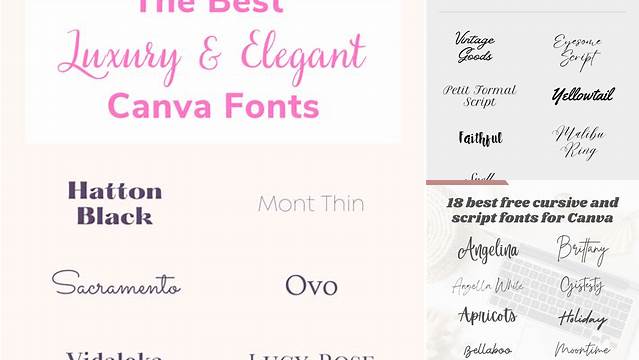
Elegant Thick Cursive Fonts In Canva: A Design Guide
Hey guys! Ever wanted to add a touch of sophistication and personality to your designs? You know, that elegant flair that just screams professional and eye-catching? Well, you've stumbled upon the right place! Today, we're diving deep into the world of thick cursive fonts in Canva, a design tool that's become a total game-changer for everyone from social media gurus to small business owners. Thick cursive fonts aren't just pretty; they're powerful. They evoke feelings of luxury, creativity, and a personal touch, making them perfect for invitations, logos, branding materials, and so much more. But with so many options out there, how do you choose the right one? How do you make sure it pops without being overwhelming? Don't worry, we've got you covered! We'll explore why thick cursive fonts are so effective, how to find them in Canva, and how to use them like a pro. So, buckle up, grab your favorite beverage, and let's unlock the elegance of thick cursive fonts together! Think of thick cursive fonts as the secret sauce that can elevate your designs from meh to magnificent. They're not just about looking fancy; they're about conveying a message with style and grace. Imagine a wedding invitation with a beautifully flowing cursive font announcing the big day – instantly, you get a sense of romance and elegance. Or a logo for a boutique that uses a thick cursive font to exude sophistication and exclusivity. The power of these fonts lies in their ability to communicate emotions and brand identity in a visual way. But let's be real, using cursive fonts effectively is an art. Too thin, and they might get lost in the design. Too ornate, and they become illegible. That's where the thickness comes in. A thick cursive font provides the perfect balance – it's bold enough to grab attention, yet still retains the graceful curves and loops that make cursive so captivating. Now, you might be wondering, "Why Canva?" Well, Canva has democratized design, making it accessible to everyone, regardless of their design background. Its user-friendly interface and vast library of fonts, templates, and graphics make it a playground for creativity. And when it comes to cursive fonts, Canva doesn't disappoint. From classic scripts to modern calligraphy, you'll find a treasure trove of options to choose from. But with so many choices, it's easy to get overwhelmed. That's why we're here to guide you through the process, helping you navigate Canva's font library and discover the perfect thick cursive font for your next project.
Why Choose Thick Cursive Fonts? Exploring the Psychology and Impact
Okay, let's get down to the nitty-gritty of why thick cursive fonts are such a big deal. It's not just about aesthetics, guys; there's some serious psychology at play here! Cursive fonts, in general, evoke a sense of tradition, elegance, and personal touch. They remind us of handwritten letters, calligraphy, and the artistry of penmanship. This association creates an emotional connection with the viewer, making your message feel more authentic and heartfelt. But why thick cursive fonts specifically? Well, the added thickness brings a level of boldness and impact that thinner scripts often lack. They stand out, command attention, and make a statement. Think of it like this: a thin cursive font might whisper elegance, but a thick cursive font declares it! They're confident, stylish, and leave a lasting impression. The psychology behind font choices is fascinating. Different fonts trigger different emotions and associations in our brains. Serif fonts, with their little decorative strokes, often convey a sense of tradition and authority. Sans-serif fonts, with their clean and minimalist lines, are perceived as modern and approachable. Cursive fonts, on the other hand, tap into our emotions, evoking feelings of romance, creativity, and nostalgia. When you choose a thick cursive font, you're not just selecting a typeface; you're crafting a mood, a message, and an experience for your audience. The impact of thick cursive fonts extends beyond just emotional appeal. They also play a crucial role in readability and visual hierarchy. In a design, the fonts you use should guide the viewer's eye, highlighting important information and creating a clear flow. Thick cursive fonts can be used strategically to draw attention to headings, titles, or key phrases. Their boldness ensures they don't get lost in the design, while their elegance adds a touch of sophistication. However, it's crucial to use them sparingly and thoughtfully. Overusing cursive fonts can make your design look cluttered and difficult to read. The key is to balance them with simpler fonts for body text, creating a visual contrast that enhances the overall design. Think of mixing a thick cursive font for your headline with a clean sans-serif font for the paragraph text. This combination creates a visually appealing hierarchy, guiding the reader through your message effortlessly. Moreover, thick cursive fonts are incredibly versatile. They work wonders in a variety of design contexts, from wedding invitations and greeting cards to logos and branding materials. They add a touch of class to product packaging, elevate social media graphics, and make websites feel more personal and engaging. Whether you're designing a logo for a luxury brand or creating a poster for a creative workshop, a thick cursive font can be your secret weapon for adding that extra oomph. So, next time you're choosing a font, consider the message you want to convey and the emotions you want to evoke. Don't underestimate the power of a thick cursive font to transform your design from ordinary to extraordinary!
Finding the Perfect Thick Cursive Font in Canva: A Step-by-Step Guide
Alright, guys, let's get practical! You're sold on the power of thick cursive fonts, but how do you actually find them in Canva? Don't worry, it's easier than you think! Canva's font library is vast, but with a few tricks and tips, you'll be navigating it like a pro in no time. First things first, let's talk about navigating the Canva interface. When you open a design in Canva, you'll see a text tool in the left-hand menu. Click on it, and you can add a text box to your design. Once you've added your text, the font menu will appear in the top toolbar. This is where the magic happens! The font menu displays the current font being used, and when you click on it, a dropdown list of fonts will appear. You can scroll through the list, but with hundreds of fonts available, that can take a while. That's where the search bar comes in handy. Simply type "cursive" or "script" into the search bar, and Canva will filter the font list to show you all the cursive fonts available. But here's where it gets interesting. To find thick cursive fonts specifically, you can add keywords like "bold," "heavy," or "thick" to your search. For example, try searching for "thick script" or "bold cursive." This will narrow down your options and help you find fonts with the weight and presence you're looking for. Another super helpful feature in Canva is the font categories. In the font dropdown menu, you'll see a list of categories like "Handwriting," "Serif," "Sans Serif," and more. The "Handwriting" category is a great place to start when looking for cursive fonts. You can also explore the "Script" category, which is specifically dedicated to script and cursive styles. Once you've found a font that catches your eye, click on it to apply it to your text. You can then adjust the font size, color, and other formatting options using the toolbar at the top. Experiment with different sizes and colors to see how the font looks in your design. Don't be afraid to play around and try different combinations! Now, let's talk about some specific thick cursive fonts that you can find in Canva. While the exact font names might change over time as Canva updates its library, there are some general styles to look out for. Fonts with names like "Brush Script," "Signature," or "Calligraphy" often come in thicker weights. You can also look for fonts that have the word "Bold" or "Black" in their name, as these typically indicate a heavier version of the font. One of my personal favorites is a font called "Great Vibes." It's a classic cursive font with a beautiful flow and a good amount of thickness. Another great option is "Playlist Script," which has a more modern and playful feel. And for a truly bold and impactful look, check out fonts like "Amatic SC" (while technically a sans-serif, it has a hand-drawn feel) or "Pacifico" (a casual and friendly script). Remember, the best way to find the perfect font is to experiment and try different options. Don't settle for the first font you see. Take the time to browse Canva's library, play with different keywords and categories, and see what resonates with your design. And most importantly, have fun with it! Choosing fonts should be an enjoyable part of the design process. So, go ahead, dive into Canva's font library, and discover the perfect thick cursive font to elevate your creations!
Best Practices for Using Thick Cursive Fonts: Legibility and Impact
Okay, you've found your perfect thick cursive font in Canva – awesome! But hold your horses, guys, the job's not quite done yet. Using a beautiful font is one thing, but using it effectively is a whole other ballgame. We need to talk about best practices to ensure your designs are not only stunning but also legible and impactful. Let's start with the big one: legibility. Cursive fonts, especially thick ones, can sometimes be tricky to read if not used carefully. All those swirls and loops that make them so elegant can also make them a bit of a visual maze if you're not mindful. The key here is contrast. Make sure your cursive font stands out clearly against its background. If you're using a dark cursive font, use a light background, and vice versa. Avoid using cursive fonts on busy or cluttered backgrounds, as this can make them even harder to read. Another important factor in legibility is font size. Thick cursive fonts generally look best when used for headings, titles, or short phrases. They might not be the best choice for long paragraphs of text, as the intricate details can become overwhelming at smaller sizes. If you're using a cursive font for body text, make sure it's large enough to read comfortably. You can also increase the line spacing (also known as leading) to give the letters more room to breathe. Kerning, the spacing between individual letters, is also crucial. Some cursive fonts have tricky kerning, where the letters might appear too close together or too far apart. Canva allows you to adjust the kerning manually, so take the time to fine-tune the spacing for optimal legibility. Now, let's talk about impact. You want your thick cursive font to grab attention and make a statement, but you also want to use it strategically. Overusing cursive fonts can diminish their impact and make your design look cluttered and overwhelming. The best approach is to use them sparingly and purposefully. Think of your cursive font as the star of the show. It should be the focal point of your design, drawing the viewer's eye to the most important information. Pair it with simpler, more legible fonts for other elements like body text or subheadings. This creates a visual hierarchy, guiding the viewer through your message in a clear and effective way. When choosing a thick cursive font, consider the tone and style of your design. Different cursive fonts evoke different emotions and associations. A formal, elegant script might be perfect for a wedding invitation, but it might not be the best choice for a casual social media post. Think about the message you want to convey and choose a font that aligns with that message. Also, pay attention to the overall design aesthetic. Your cursive font should complement the other elements in your design, such as colors, images, and graphics. A cohesive design is one where all the elements work together harmoniously to create a unified message. Finally, don't be afraid to experiment and break the rules. While these best practices are a great starting point, the best way to learn is by doing. Try different combinations of fonts, sizes, and colors. See what works and what doesn't. And most importantly, trust your eye. If it looks good to you, chances are it will look good to your audience too! So, go forth and create some stunning designs with your newfound knowledge of thick cursive fonts!
Examples and Inspiration: Thick Cursive Fonts in Action
Okay, guys, we've talked about the why, the how, and the best practices. Now, let's get inspired! Nothing sparks creativity like seeing real-world examples of thick cursive fonts in action. So, let's dive into some examples and inspiration to get your creative juices flowing! Think about logos. A thick cursive font can be a fantastic choice for a logo, especially for brands that want to convey a sense of elegance, sophistication, or personal touch. Imagine a logo for a high-end boutique using a flowing, thick script – it instantly communicates a sense of luxury and exclusivity. Or a logo for a handcrafted jewelry business using a bold cursive font to emphasize the artistry and care that goes into each piece. Some great examples of brands that use cursive fonts effectively in their logos include Disney, Coca-Cola, and Instagram. While these aren't strictly thick cursive fonts, they demonstrate the power of cursive in creating a memorable and recognizable brand identity. To adapt this for a thick cursive font, envision a similar style but with bolder lines and a more substantial presence. Another fantastic application for thick cursive fonts is in wedding invitations and stationery. A beautifully written invitation sets the tone for the entire event, and a thick cursive font can add a touch of romance and elegance. Think of a classic invitation with the couple's names written in a bold script, surrounded by delicate floral illustrations. It's a timeless combination that never goes out of style. Thick cursive fonts are also perfect for save-the-dates, thank-you cards, and other wedding-related stationery. They create a cohesive and elegant look for your entire wedding suite. Social media graphics are another area where thick cursive fonts can shine. In a world of endless scrolling, you need to grab attention quickly. A bold cursive font can help your message stand out from the crowd. Use it for headings, quotes, or call-to-actions to make your graphics more eye-catching and engaging. However, remember the legibility rule! Make sure your cursive font is easy to read, even on a small screen. Pair it with a simpler font for body text to create a clear visual hierarchy. Website design is yet another place where thick cursive fonts can make a big impact. Use them for headings, banners, or other key elements to add a touch of personality and style to your website. But be careful not to overdo it! Too much cursive can make your website look cluttered and unprofessional. Use it sparingly and strategically to create a visual focal point. For inspiration, look at websites for creative businesses, such as photographers, designers, and artists. They often use cursive fonts effectively to showcase their unique style and personality. Finally, let's talk about print materials like posters, flyers, and brochures. A thick cursive font can be a great way to add a touch of elegance and sophistication to your print designs. Use it for headings, titles, or special announcements to make your message stand out. But again, remember the legibility rule! Make sure your cursive font is large enough to read from a distance. Look at posters for events like concerts, art exhibitions, and festivals. You'll often see cursive fonts used in creative and eye-catching ways. So, there you have it – a whirlwind tour of thick cursive fonts in action! Hopefully, these examples have sparked your creativity and given you some ideas for your next design project. Remember, the key is to experiment, have fun, and find your own unique style. Go out there and create something beautiful!
Conclusion: Embrace the Elegance of Thick Cursive Fonts in Your Designs
Well, guys, we've reached the end of our journey into the world of thick cursive fonts in Canva! We've explored why they're so effective, how to find them, how to use them, and even looked at some inspiring examples. Hopefully, you're feeling confident and ready to embrace the elegance and impact of these beautiful typefaces in your own designs. Throughout this guide, we've emphasized the importance of legibility, balance, and purposeful use. Remember, a thick cursive font is a powerful tool, but it's one that should be wielded with care. Don't be afraid to experiment and push boundaries, but always keep in mind the message you're trying to convey and the audience you're trying to reach. Think of thick cursive fonts as the icing on the cake – they add that extra touch of flair and sophistication that can elevate your design from good to great. But like icing, too much can be overwhelming. Use them strategically to highlight key elements, create visual interest, and evoke the desired emotions. We've also talked about the importance of font pairing. Combining a thick cursive font with a simpler, more legible font is a classic technique that creates a harmonious and balanced design. A bold script paired with a clean sans-serif font can be a match made in heaven, creating a visual hierarchy that guides the viewer's eye and ensures your message is clear. Canva is an incredible tool for experimenting with fonts and design. Its user-friendly interface and vast library of resources make it accessible to everyone, regardless of their design background. So, don't be afraid to dive in, explore the font library, and play around with different combinations. The best way to learn is by doing! As you continue your design journey, remember that font choice is a powerful form of visual communication. The fonts you use can influence the way your message is perceived, the emotions it evokes, and the overall impact it has on your audience. Choosing the right font is like choosing the right words – it can make all the difference. So, embrace the elegance of thick cursive fonts, but use them thoughtfully and strategically. Let them be a tool for expressing your creativity, communicating your message, and creating designs that truly resonate with your audience. And most importantly, have fun with it! Design should be an enjoyable and rewarding process. So, go forth and create something beautiful, something impactful, and something that reflects your unique style and vision. The world of thick cursive fonts is waiting to be explored – are you ready to dive in?